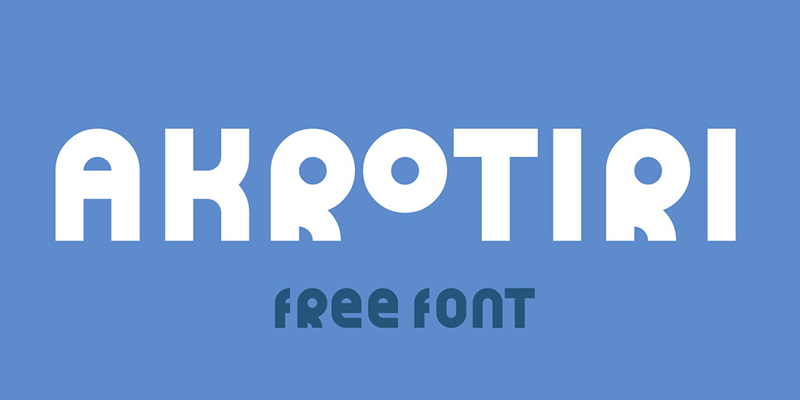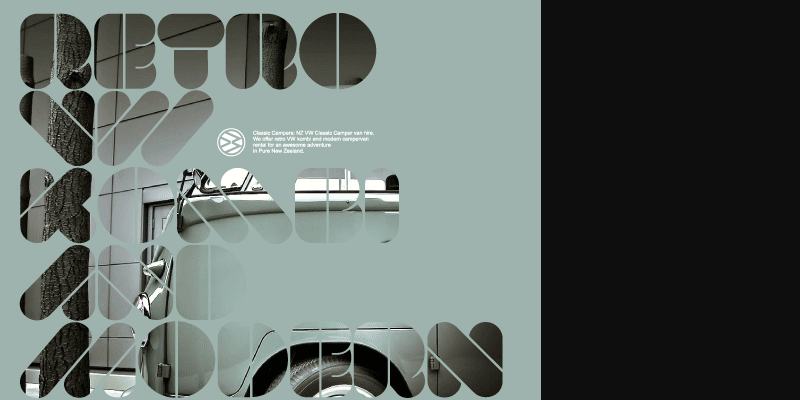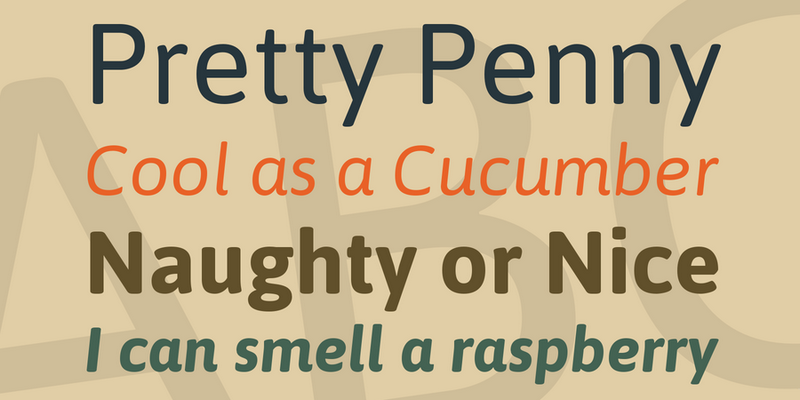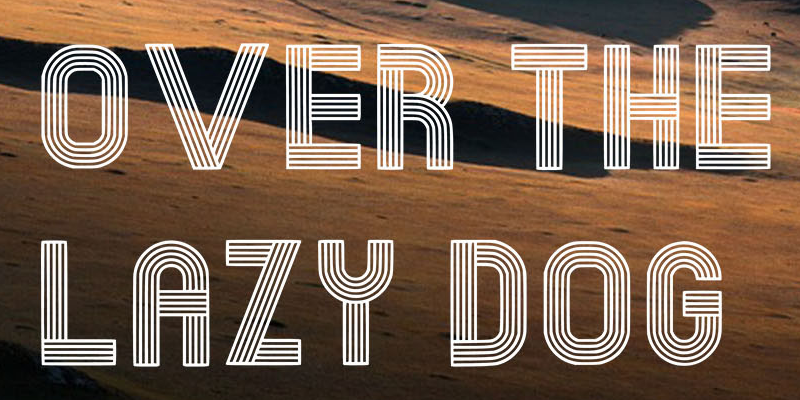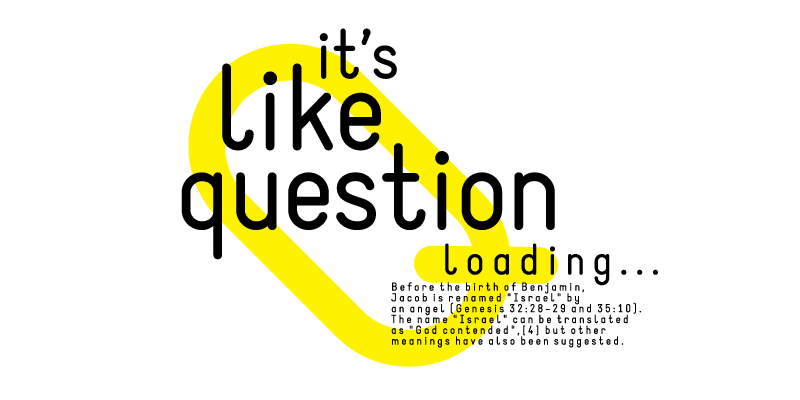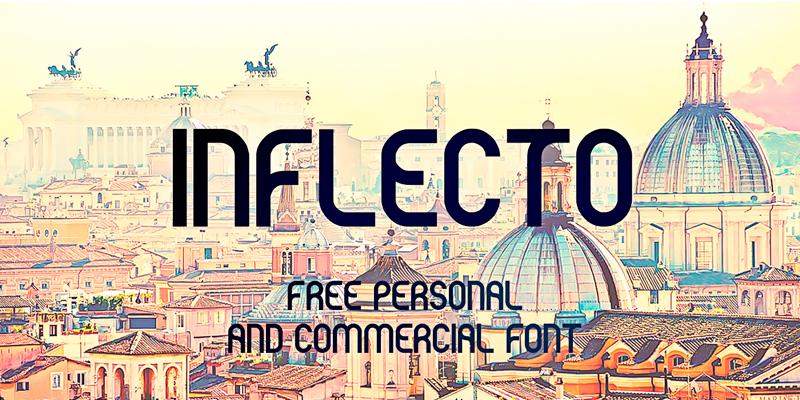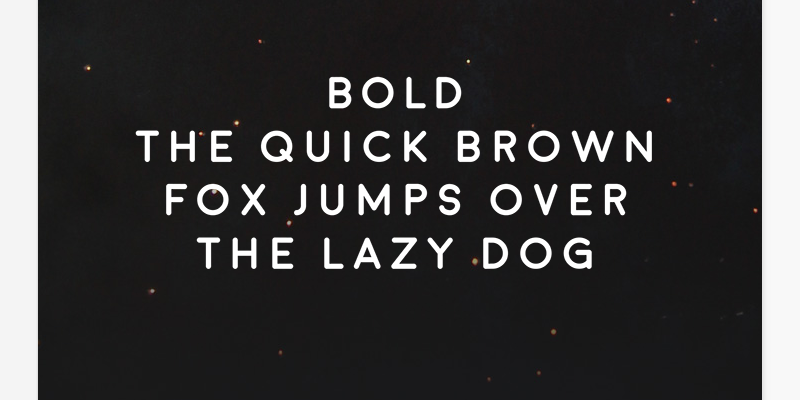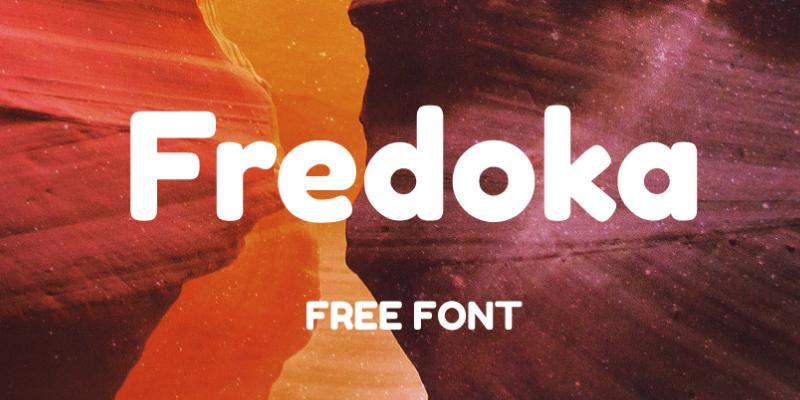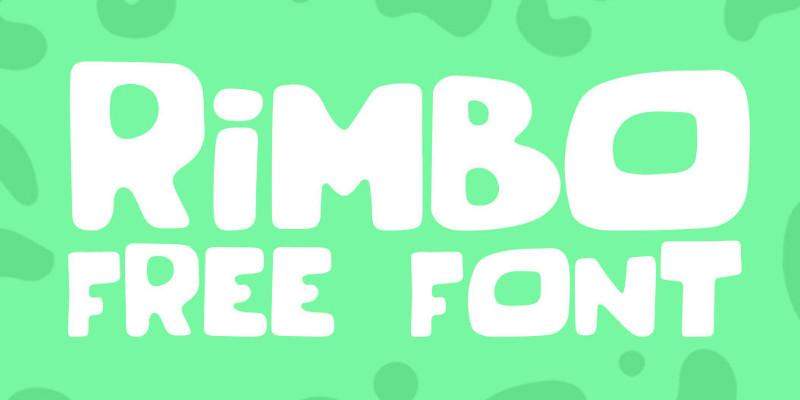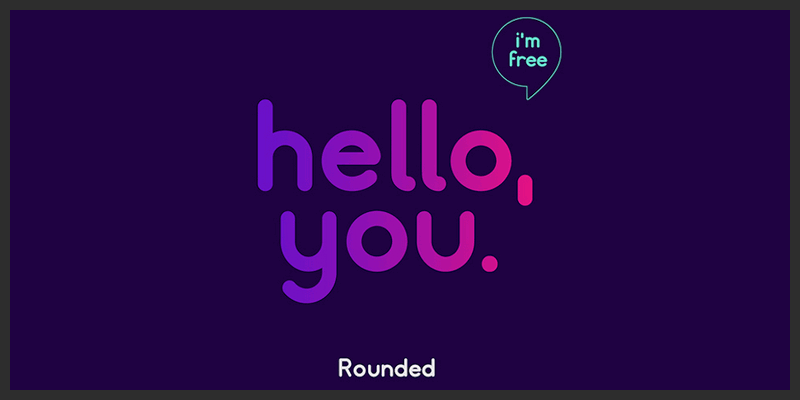
Free Rounded Fonts for Your Next Design Project
Looking for soft, modern typography that feels friendly and clean? This curated collection of free rounded fonts is perfect for your next creative project. Featuring smooth edges and balanced shapes, these typefaces bring a welcoming, contemporary vibe to your designs.
Why Choose Rounded Fonts for Your Designs
Rounded fonts add warmth, clarity, and a sense of approachability — making them ideal for branding, UI/UX design, posters, websites, social media graphics, and more. Their modern yet soft look helps communicate professionalism while keeping your visuals engaging and easy to read.
Use them for:
• Website headers and landing pages
• Posters, flyers, and event invitations
• Logo design and brand identity projects
• Minimalist layouts and clean visual compositions
Add a Soft, Modern Touch to Your Designs
Explore our selection of Free Rounded Fonts for Your Next Design Project and find the perfect match for your style.
Experiment, combine, and create — these free rounded fonts will help you achieve a smooth, modern aesthetic in every design.
1. Static font
2. Decovar Font
3. Gota Font
4. Moon Font
5. Akrotiri Font
6. Fredoka Font
7. Asap Font
8. Hover Font
9. Westfalia Font
10. Dubline Font
11. Rimbo Font
12. Liquide font
13. VAL Stencil font
14. Potra Font
15. Jellee Font
16. Canvas font
17. Numb3rs font
18. Rosarina font
19. Rounded font
20. Oduda Font
21. Stencil Neon font
22. Breathtaker Font
23. Popo font
24. Quantum font
25. Inflecto font